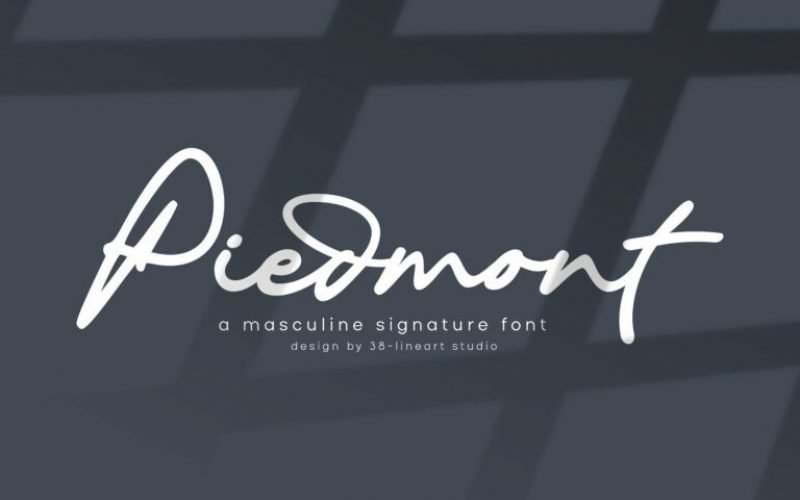
Piedmont Script Font
This time we wanted to create a gallant signature font.
Inspired by men’s hand strokes, with a decisive pattern, each glyph is formed through the pressing of the pen, the orientation of the shape is almost constant with the direction of the pattern that continues to point forward and ends with a strong pressing of the pen.
We call it the masculine signature type, reflecting a confident attitude, a definite decision and full confidence.
We design this font for modern product branding, not only for men, but women also love this masculine side.
This font is equipped with swashes, alternates and additional ligatures for the lowercase.
By using this font, it will give your brand more confidence to appear wider.